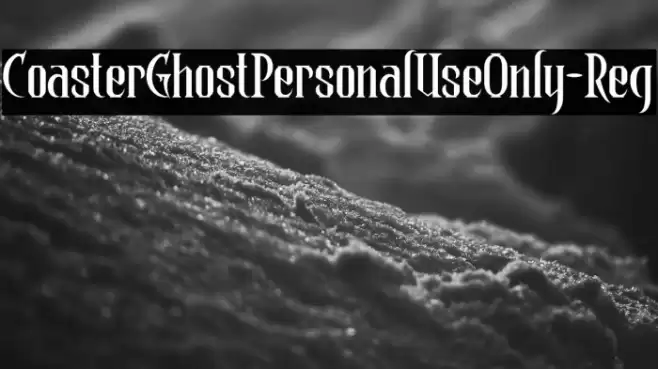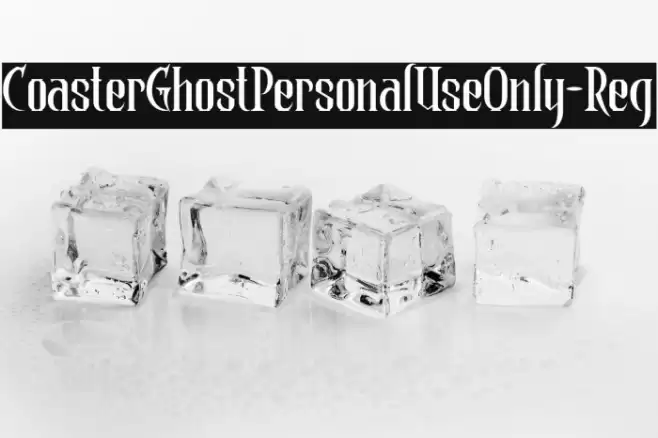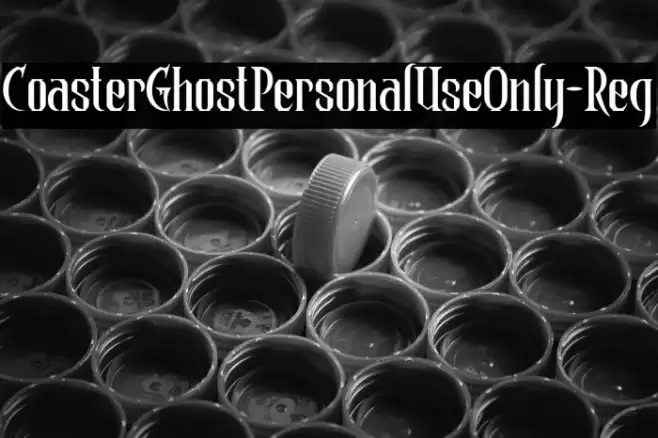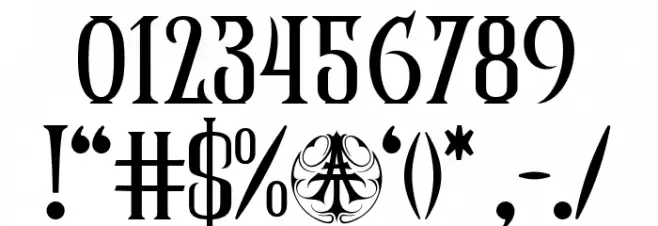
CoasterGhostPersonalUseOnly-Reg Font
CoasterGhostPersonalUseOnly-Reg Description
This font features a bold and dramatic style with high contrast between thick and thin strokes, giving it a striking appearance. The characters are elongated with sharp, angular serifs that add a sense of elegance and sophistication. The uppercase letters are particularly tall and commanding, while the lowercase letters maintain a consistent style with a slightly more compact form. The numerals are distinct and maintain the same high contrast and sharpness as the letters. Special characters are uniquely styled, adding to the font's decorative appeal. Overall, this font exudes a vintage yet modern feel, making it suitable for attention-grabbing designs.
A bold, high-contrast font with sharp serifs and a vintage-modern style from Regular fonts.
- Proposed Projects: Ideal for posters, logos, branding, and headlines that require a bold and dramatic impact.
- Overall Style: Vintage, Modern